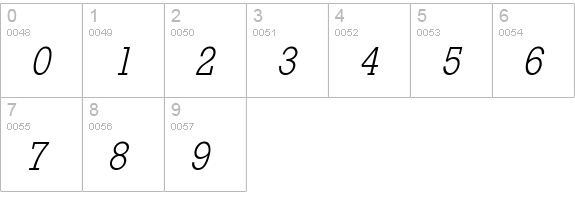
Rockney Light Italic is a refined, elegant, italic variant in the Rockney typeface family \xE2\x80\x94 well suited to elegant body text, refined sub-headings, and luxury branding.
Rockney Light Italic is a modern and elegant font that exudes sophistication and style. With its sleek and slanted design, this font is perfect for adding a touch of refinement to any project. Whether you are designing a logo, creating a website, or crafting a stunning brochure, Rockney Light Italic is sure to make a lasting impression. The best part? Rockney Light Italic is available for free download at FontsMarket.com! Simply head over to the website and start using this beautiful font in your designs today. Don't miss out on the opportunity to enhance your work with the timeless elegance of Rockney Light Italic.